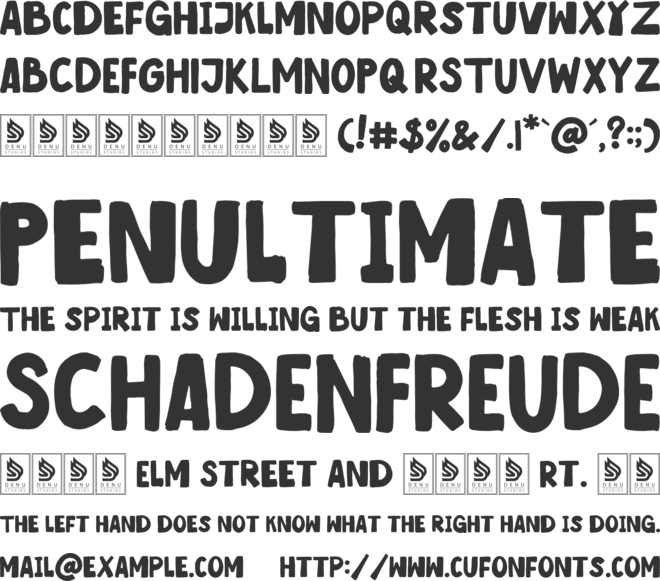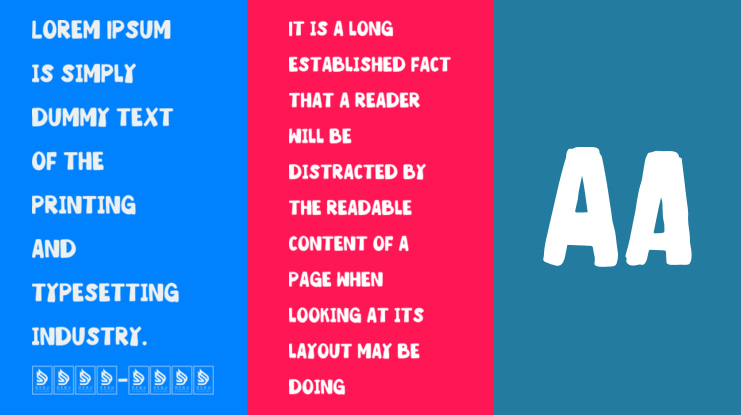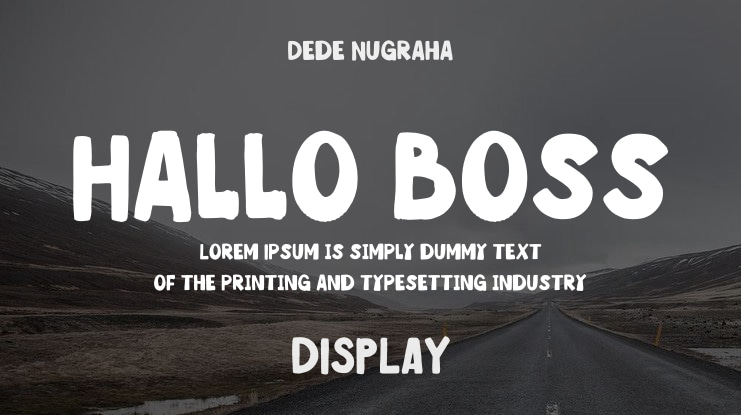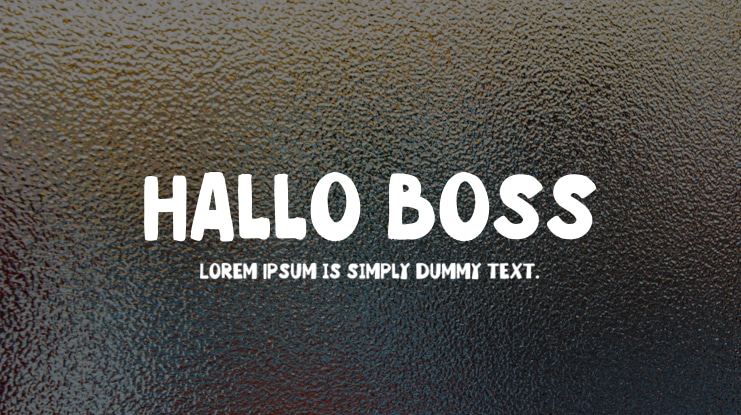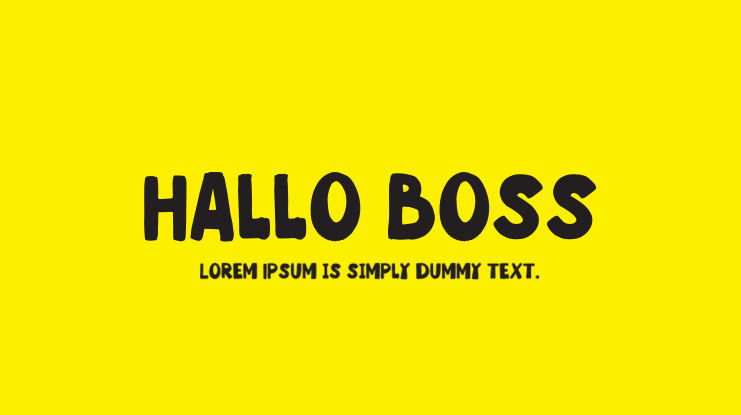
Dede Nugraha
Hallo Boss | Playful Display Font is suitable for any project, including logos, branding projects, homeware designs, product packaging, mugs, quotes, posters, shopping bags, t-shirts, book covers, name cards, invitation cards, greeting cards, labels, photography, watermarks, special events, and all your other lovely projects that need a playful display font touch.